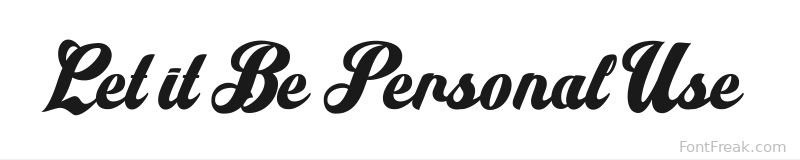
Let it Be Personal Use
Let it Be Personal Use font by Billy Argel Fonts is a captivating script typeface that exudes a sense of warmth and intimacy. With its elegant, flowing strokes and a playful rhythm, this font captures the essence of handwritten communication. The stroke weight is moderately thick, creating a bold presence while maintaining a delicate aesthetic. The contrast between the thick and thin lines adds visual interest, and the generous spacing between characters enhances readability, making it suitable for various applications.
This font is ideal for a range of creative projects. It is particularly well-suited for wedding invitations, where its romantic flair can set the tone for a special day. Additionally, it shines in crafting personalized greeting cards, providing a heartfelt touch that resonates with recipients. Small business owners can utilize this font for branding elements, such as logos and packaging, effectively conveying a friendly and approachable image. Furthermore, Let it Be Personal Use can elevate restaurant menus, adding a touch of elegance that complements any culinary experience.
The target audience for this font includes graphic designers seeking to add a unique flair to their projects, small business owners looking to establish a distinctive identity, and content creators aiming to enhance their visual storytelling.
What sets Let it Be Personal Use apart is its ability to blend sophistication with a casual feel, making it versatile for both formal and informal contexts. With its freeware license, users can enjoy a Let it Be Personal Use font free download, allowing them to incorporate this charming typeface into their creative endeavors without any cost. This font is a delightful choice for anyone looking to add a personal touch to their design work, ensuring that each project feels unique and engaging.